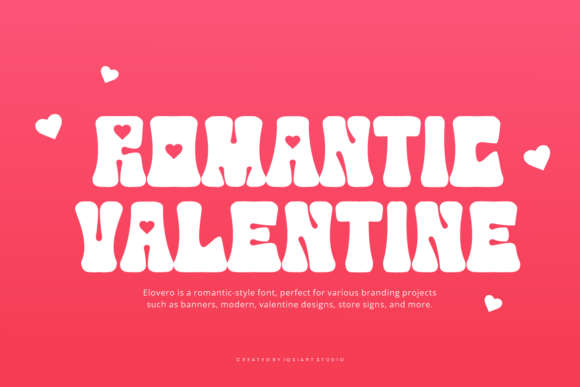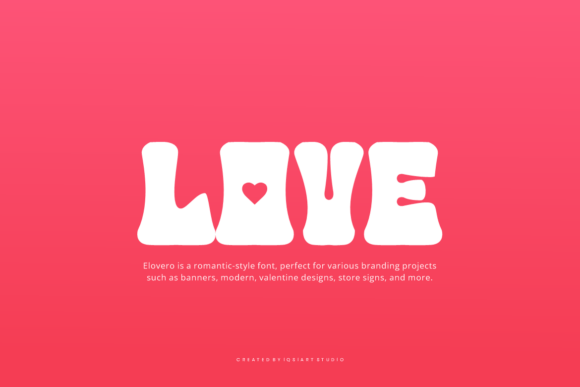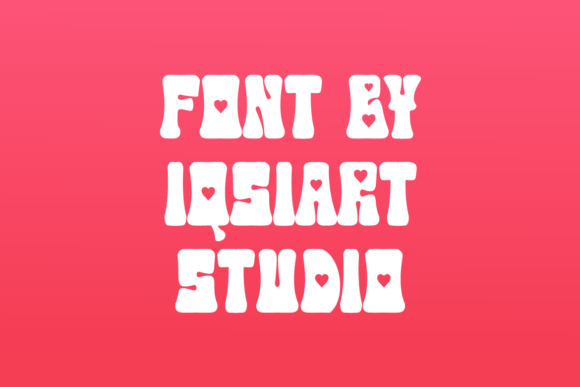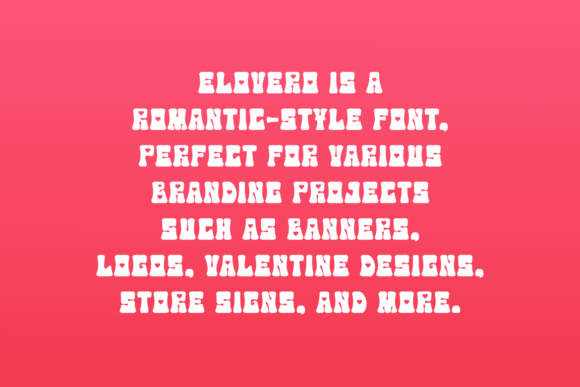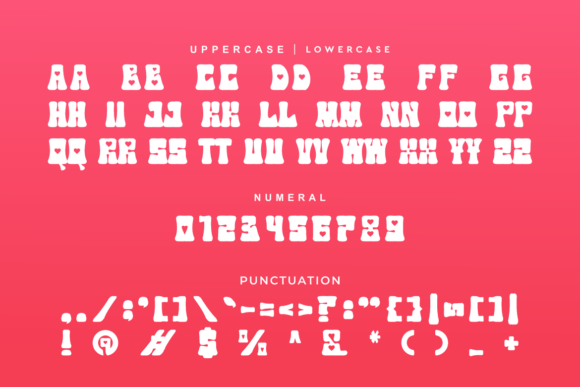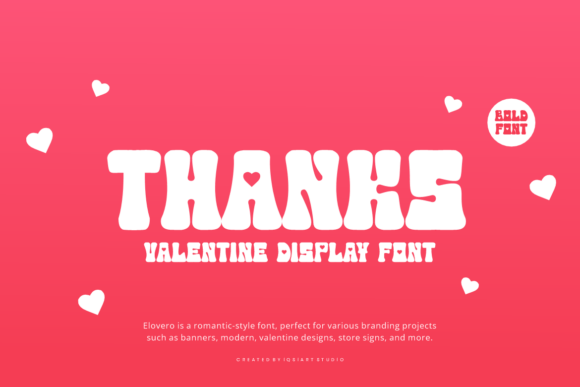
Elovero Font: Elevate Your Designs with a Fun and Playful Twist
Elovero is a fun display font that can instantly add a playful touch to your projects. With its unique and eye-catching design, Elovero is perfect for designers and crafters looking to make a statement. In this article, we’ll dive into the world of Elovero Font, exploring its features, benefits, and uses, as well as provide tips on how to make the most of this exciting font.
The Story Behind Elovero Font
Elovero Font is a carefully crafted display font designed to bring a smile to your face. Its creators aimed to develop a font that would be both fun and versatile, suitable for a wide range of projects, from creative crafts to digital designs. With Elovero, you can add a dash of personality to your work, making it stand out from the crowd.
Key Features of Elovero Font
- Unique Design: Elovero boasts a distinctive and stylish design that sets it apart from other fonts.
- Playful Twist: This font adds a fun and playful touch to your projects, making them more engaging and attention-grabbing.
- Versatility: Elovero is suitable for a wide range of projects, including digital designs, crafts, and more.
- Adds Personality: Elovero helps you inject personality into your designs, making them more relatable and engaging.
- Enhances Creativity: With Elovero, you can experiment with different styles and designs, pushing the boundaries of your creativity.
- High-Quality: Elovero is a high-quality font, ensuring that your projects look professional and polished.
Using Elovero Font in Your Projects
Now that you’re excited about Elovero Font, let’s explore some ideas for using it in your projects:
- Digital Designs: Add Elovero to your website, social media graphics, or digital ads to make them more engaging.
- Crafts: Use Elovero for handmade crafts, such as card making, scrapbooking, or DIY projects.
- Branding: Incorporate Elovero into your brand identity, including logos, business cards, or letterheads.
- Events: Make your event materials, such as invitations, flyers, or posters, stand out with Elovero.
- Experiment with Colors: Try pairing Elovero with different colors to create unique and eye-catching combinations.
- Mix and Match: Combine Elovero with other fonts to create interesting and dynamic designs.
- Pay Attention to Size: Adjust the font size to ensure that Elovero is used effectively in your design.
- Have Fun: Don’t be afraid to try new things and have fun with Elovero – it’s a font that’s meant to be enjoyed!
Elovero Font is a fun and playful display font that can elevate your designs and add a touch of personality to your projects. With its unique design, versatility, and ease of use, Elovero is perfect for designers and crafters looking to make a statement. By incorporating Elovero into your workflow, you can enhance your creativity, save time, and produce high-quality designs that stand out from the crowd. So why not give Elovero a try and see the amazing results for yourself?
Elovero is a fun display font. Add it to your projects and enjoy the results!